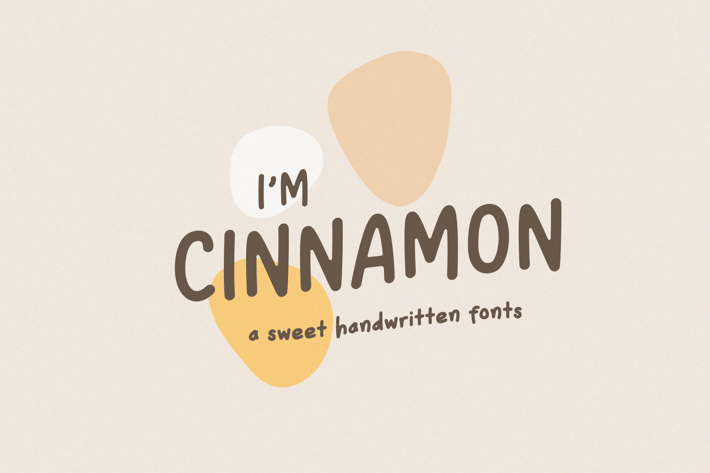
Cinnamon | A Sweet Handwritten Fonts
Cinnamon - a sweet handwritten font, offers beautiful typography harmony for a diversity of design projects, quotes, headlines, branding visual identity, poster, logo, magazines and etc. Cinnamon font also includes full set of uppercase and lowercase letters, multilingual symbols, numerals, punctuation.
Cinnamon
Cinnamon Oblique
Cinnamon Extended
Cinnamon Extended Oblique
Cinnamon Condensed
Cinnamon Condensed Oblique